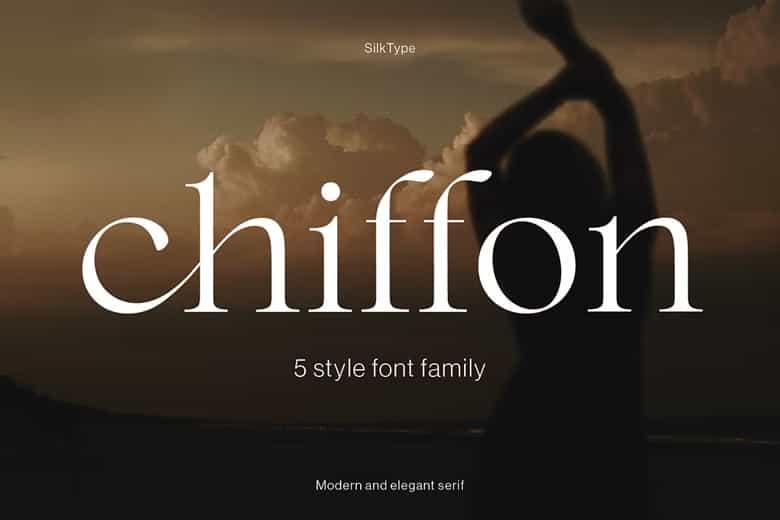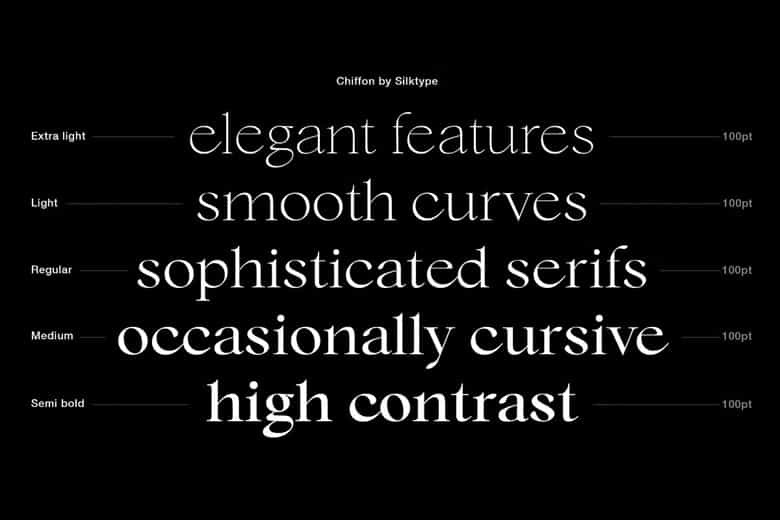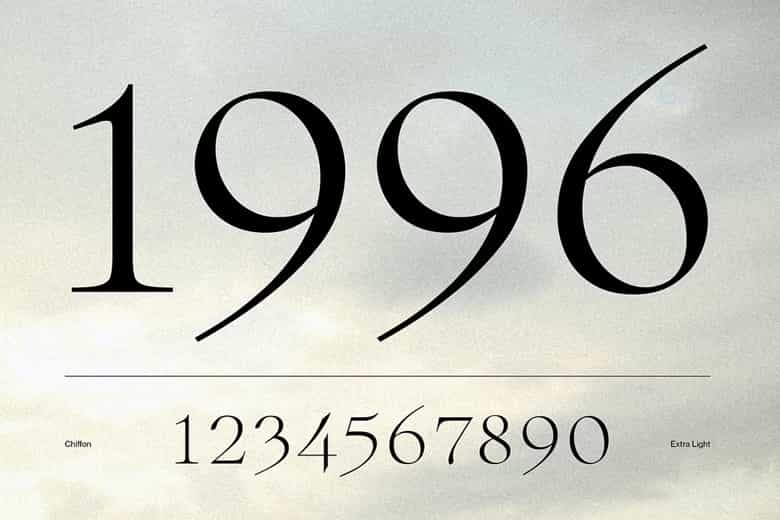
Chiffon is a modern serif font family with high contrast and very elegant curves all throughout the characters. Chiffon has three variants of ‘c’ and ‘e’ and these have been integrated in the typeface at strategic locations in combination with the next glyph. Nevertheless, OpenType features and stylistic sets enable the alternate forms for selection by the user to choose the desired one.